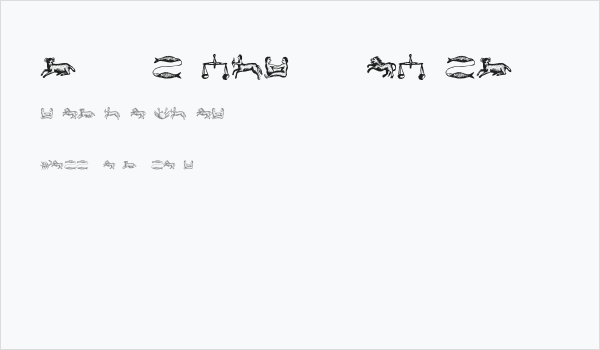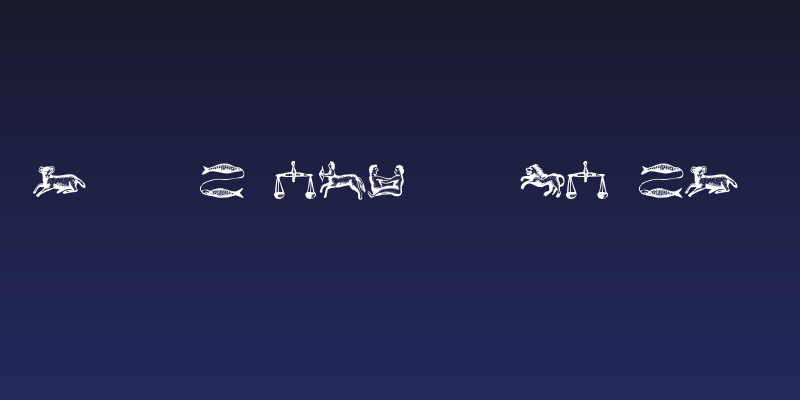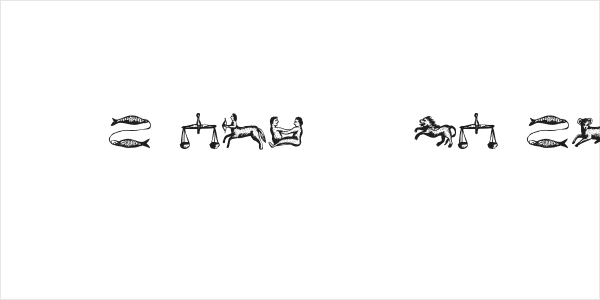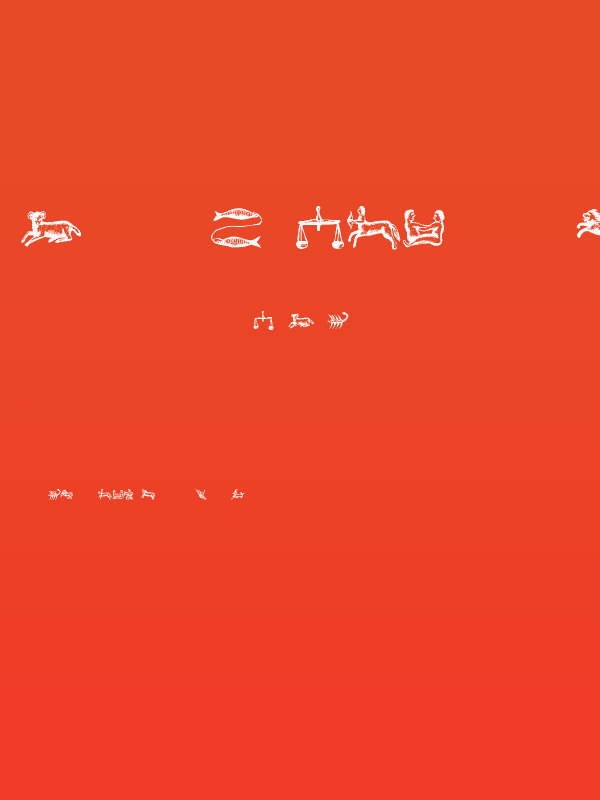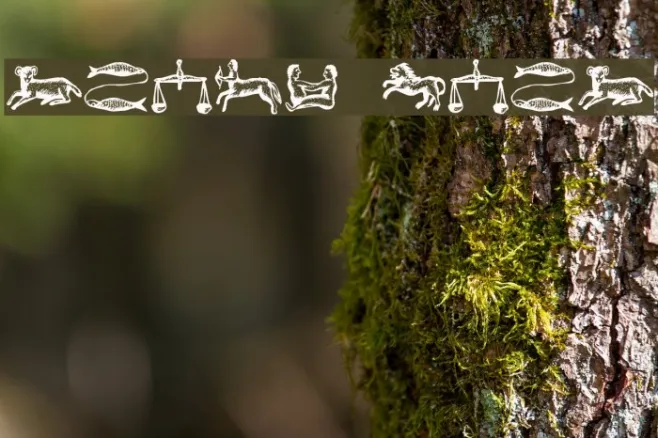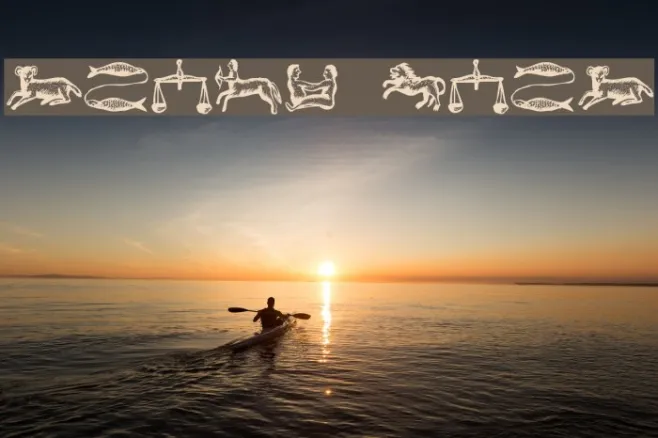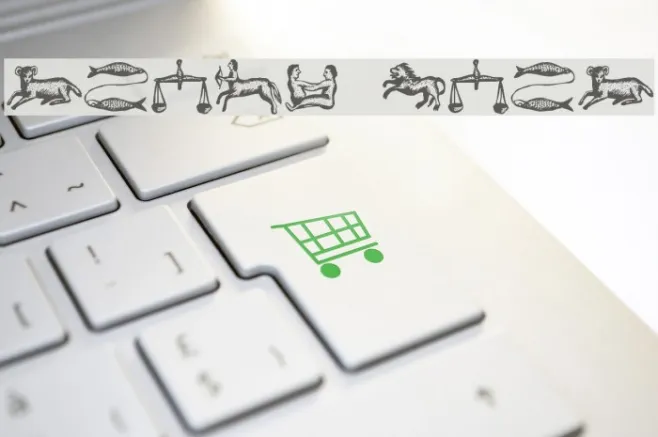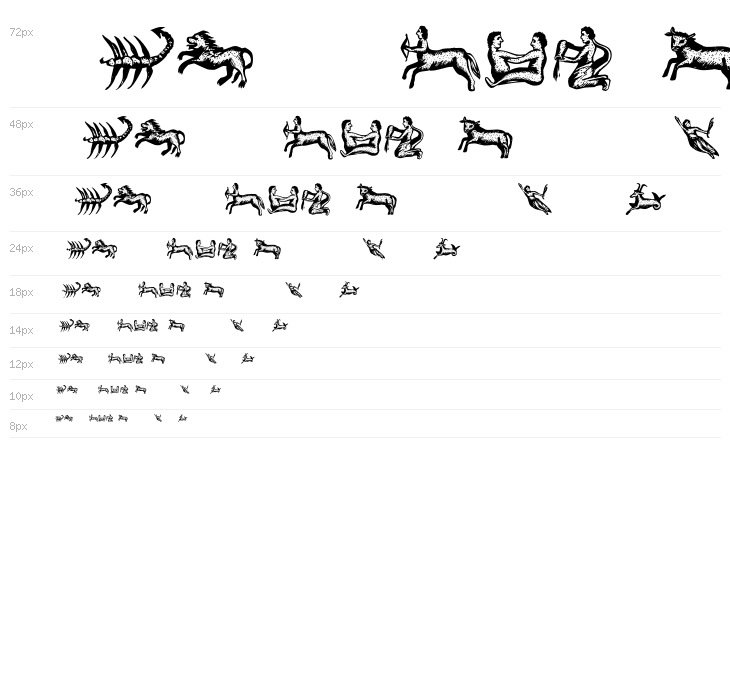
Astrologicus Regular Font
Astrologicus Regular Description
This font is a decorative collection of zodiac symbols, each intricately designed to represent the twelve astrological signs. The symbols are detailed and artistic, capturing the essence of each zodiac sign with a vintage flair. The characters are consistent in style, featuring bold lines and intricate details that make them stand out. This font is not designed for traditional text but rather for decorative purposes, making it ideal for projects that require a mystical or astrological theme.
| Use Case | Decorative elements, Themed designs |
| Proposed Projects | Ideal for astrology-themed designs, horoscopes, mystical event invitations, or decorative elements in publications related to zodiac signs. |